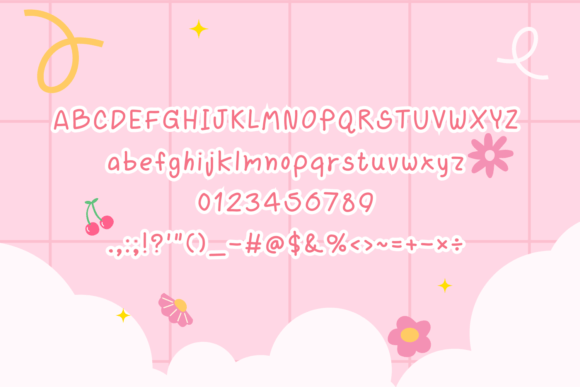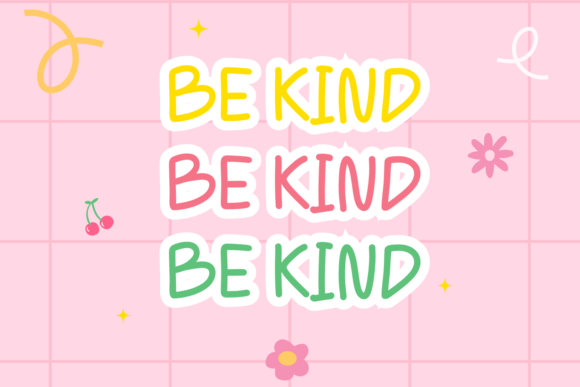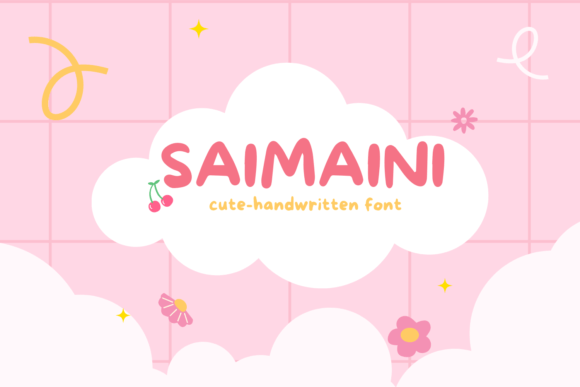
Introduction to Saimaini Font
Saimaini is a childish, easy-to-read handwritten font that conveys impeccable friendliness.
Key Features of Saimaini Font
Why Choose Saimaini Font?